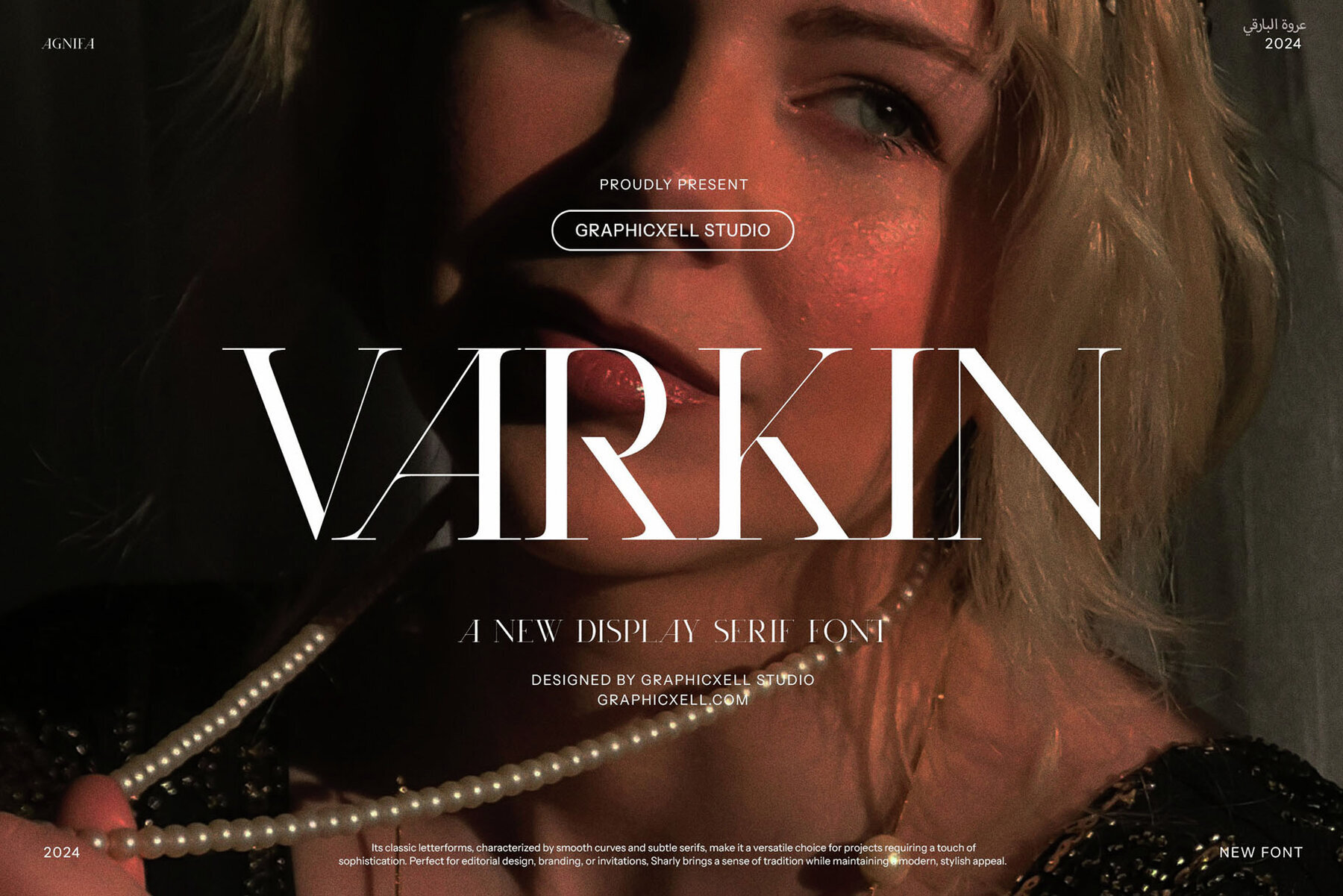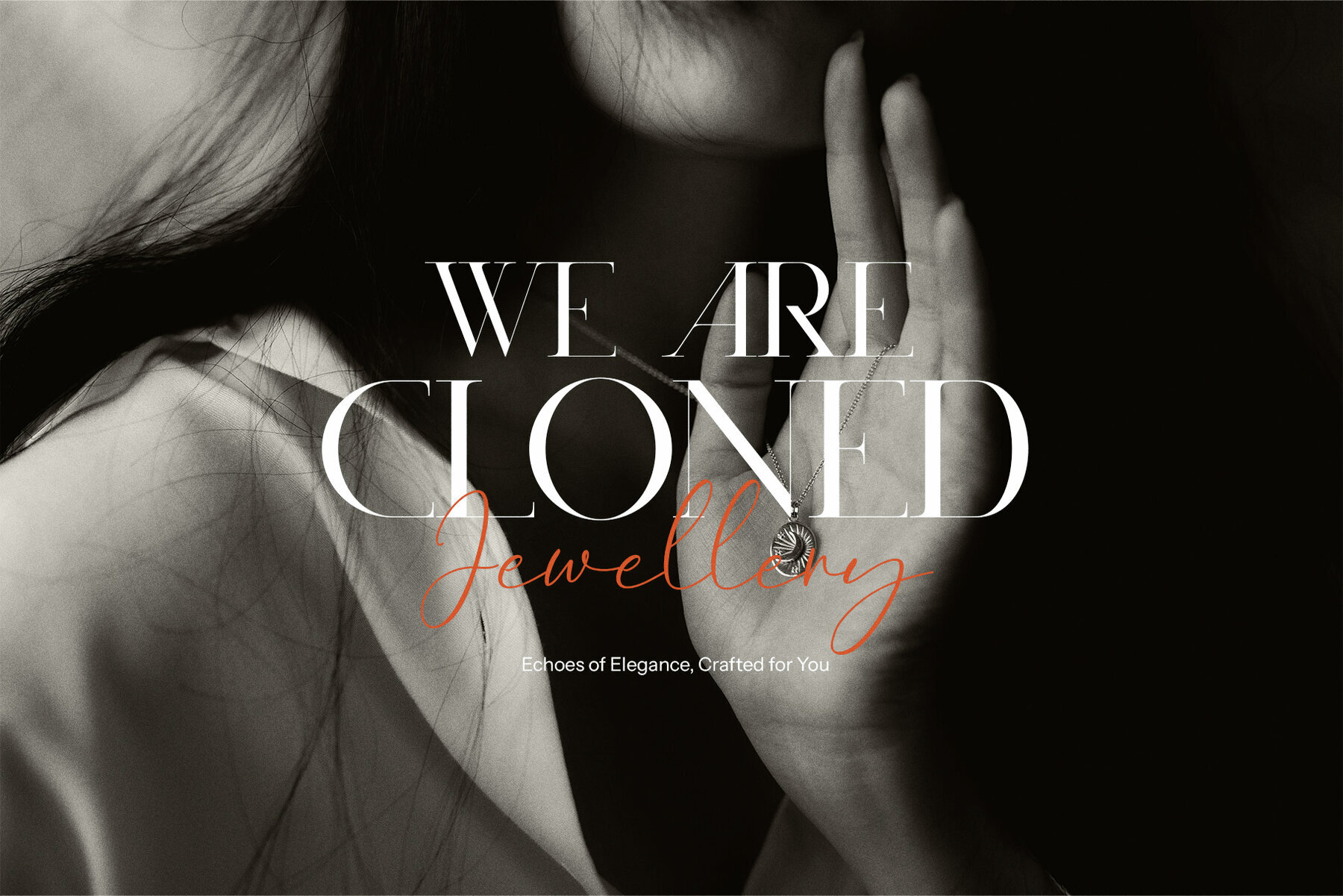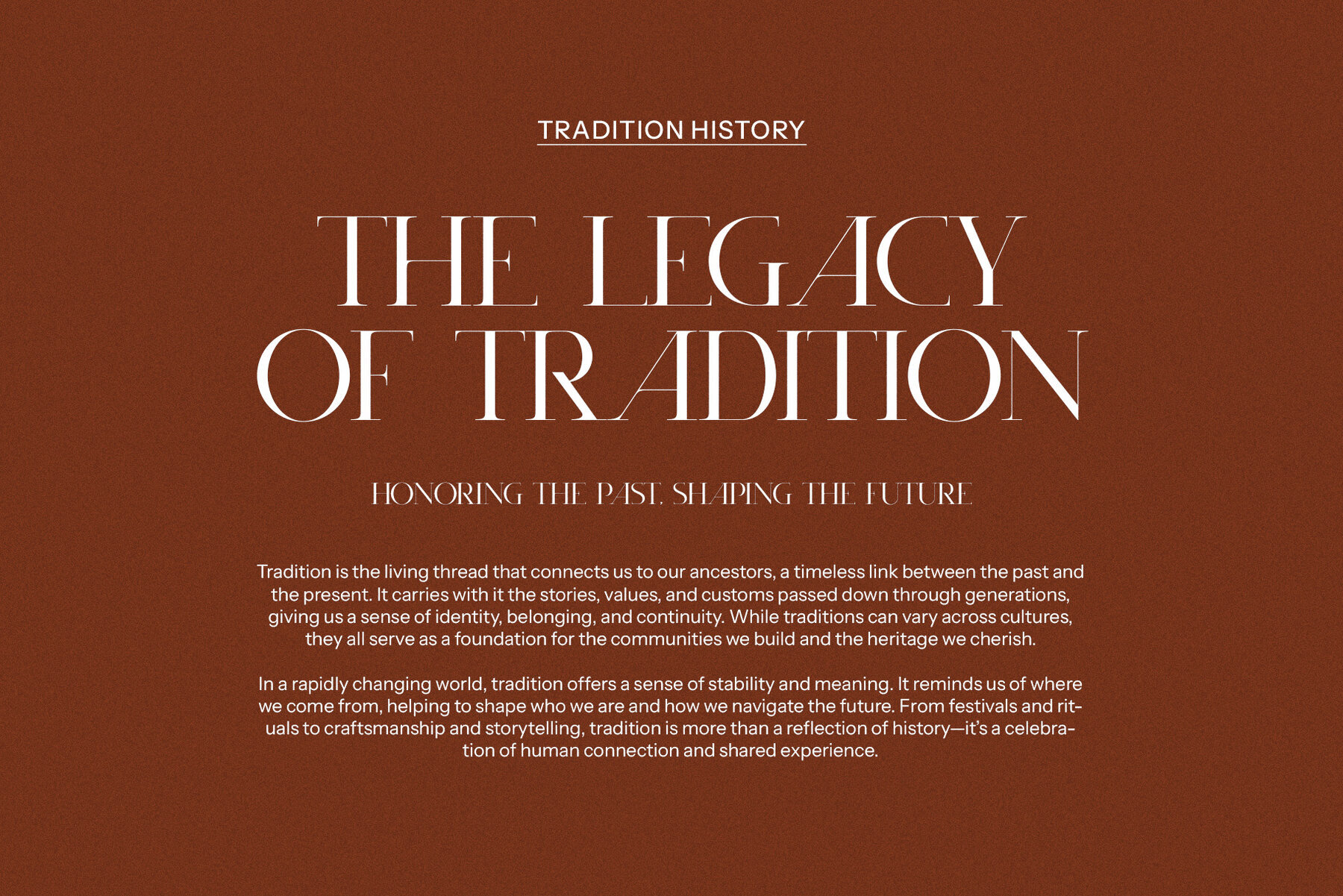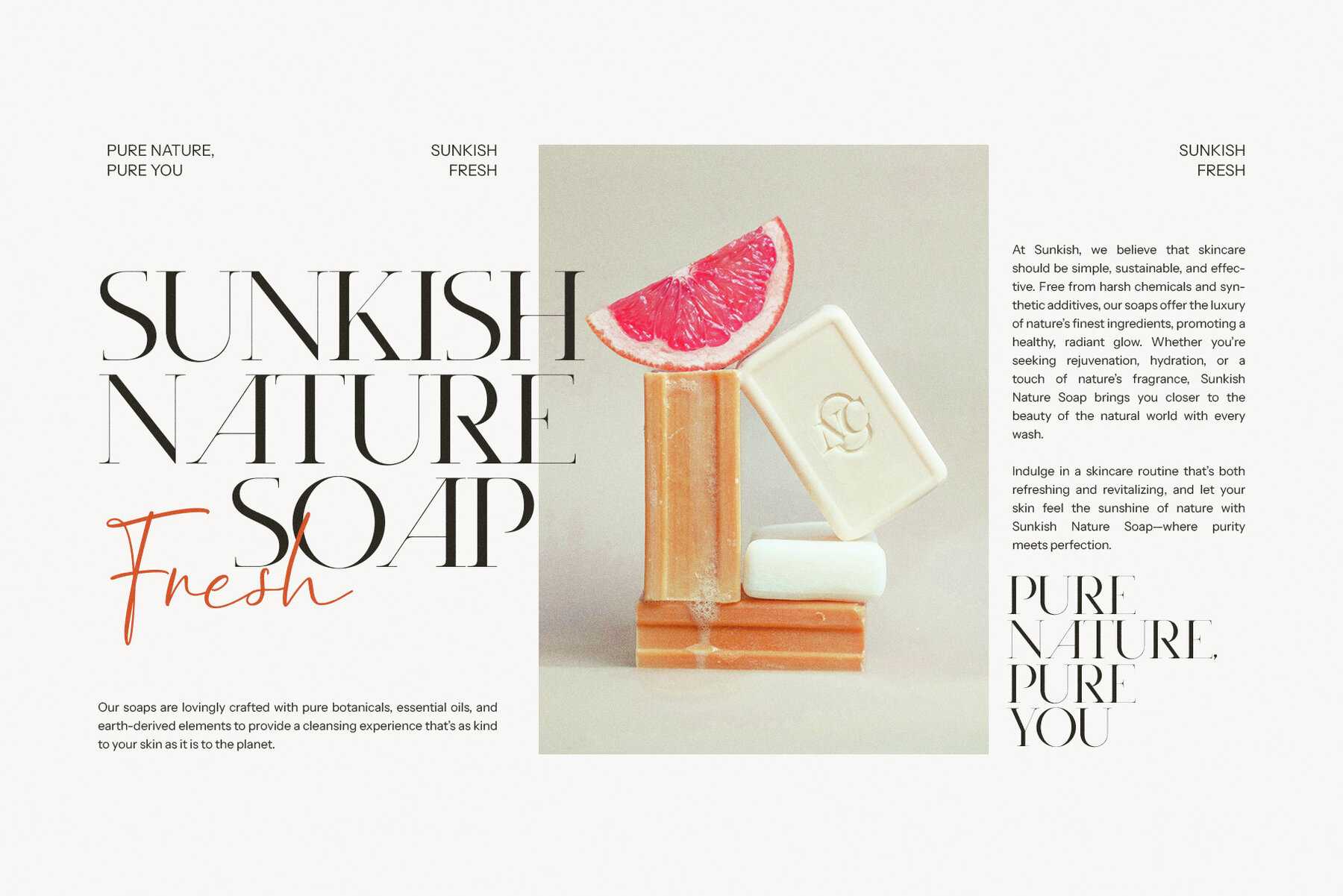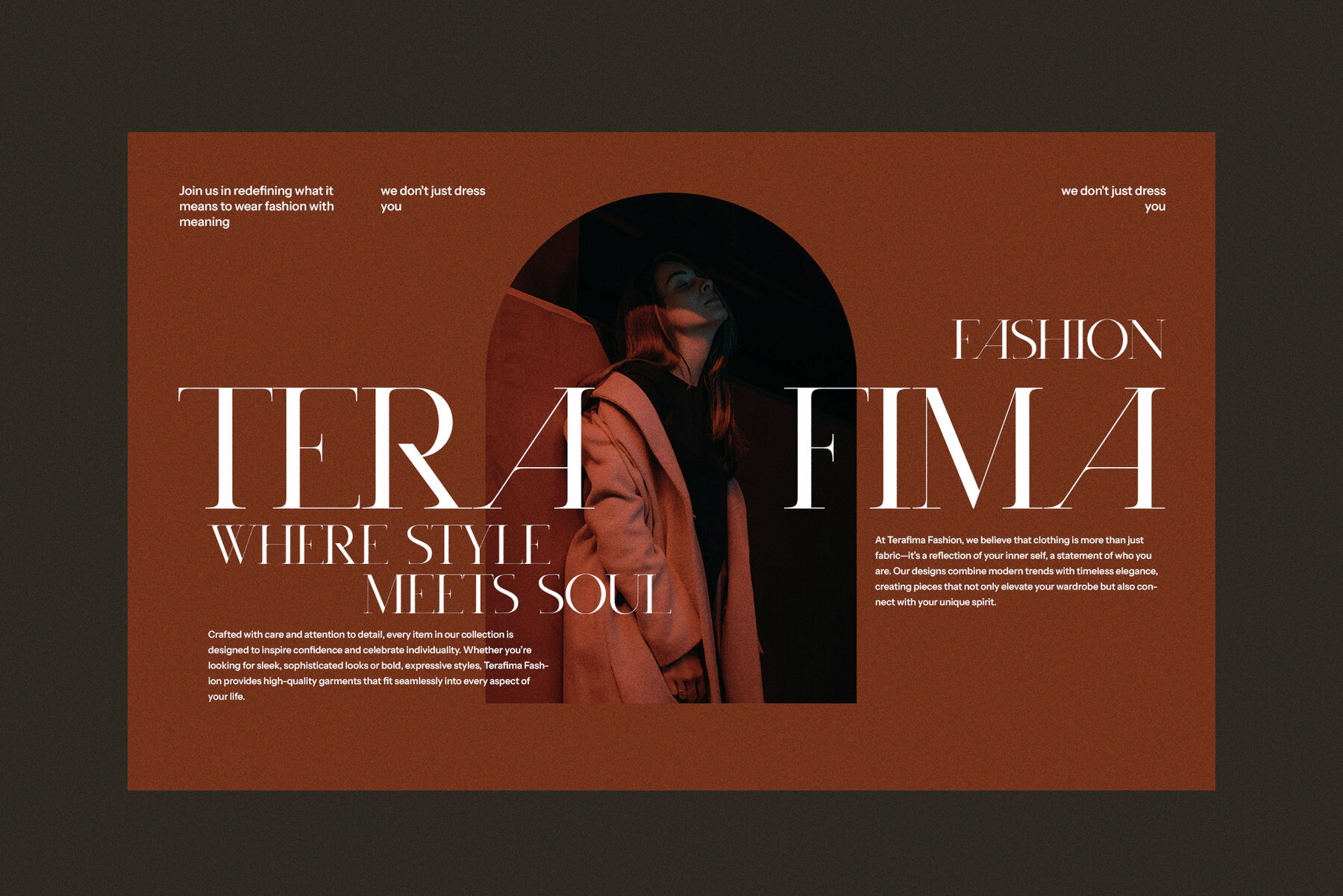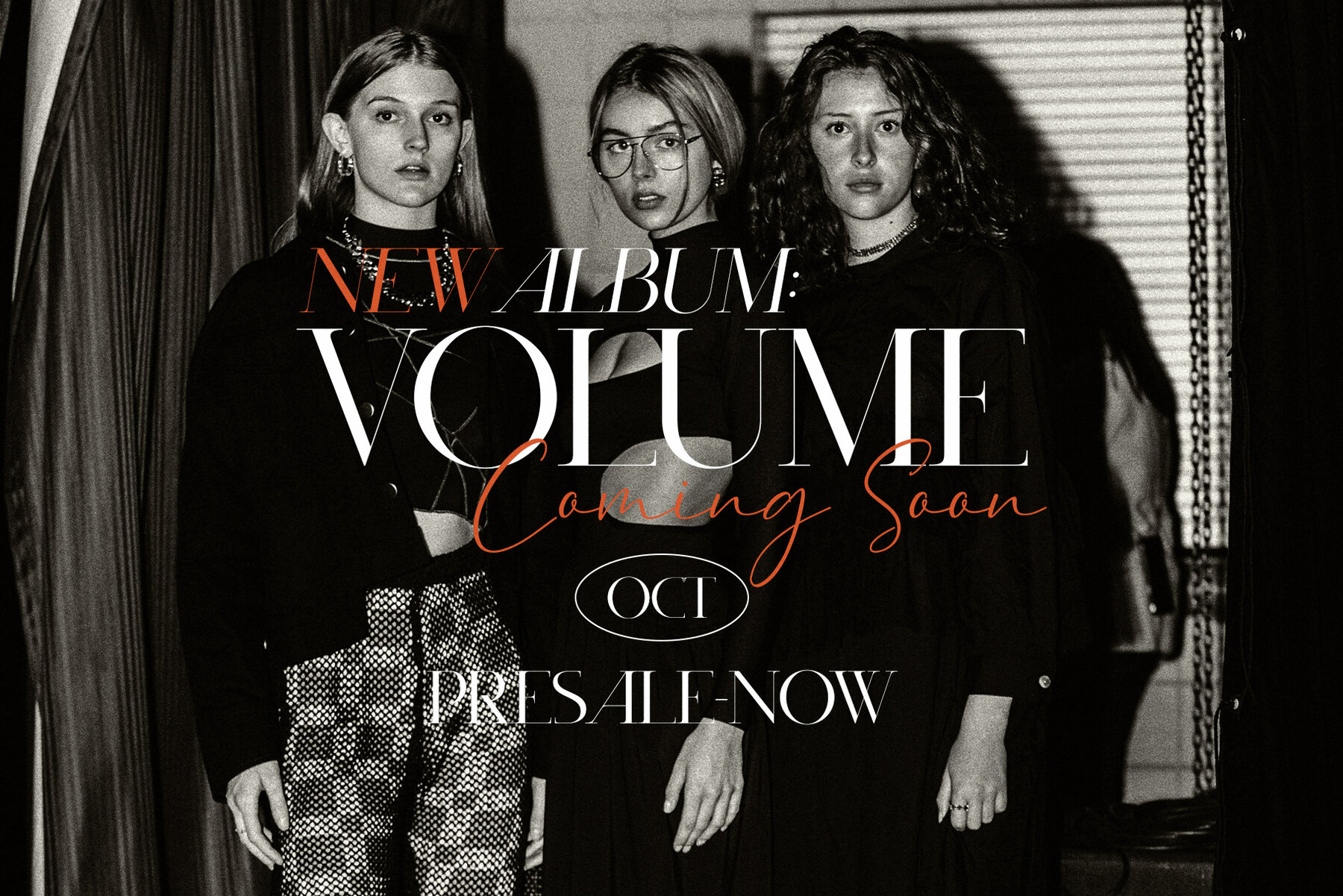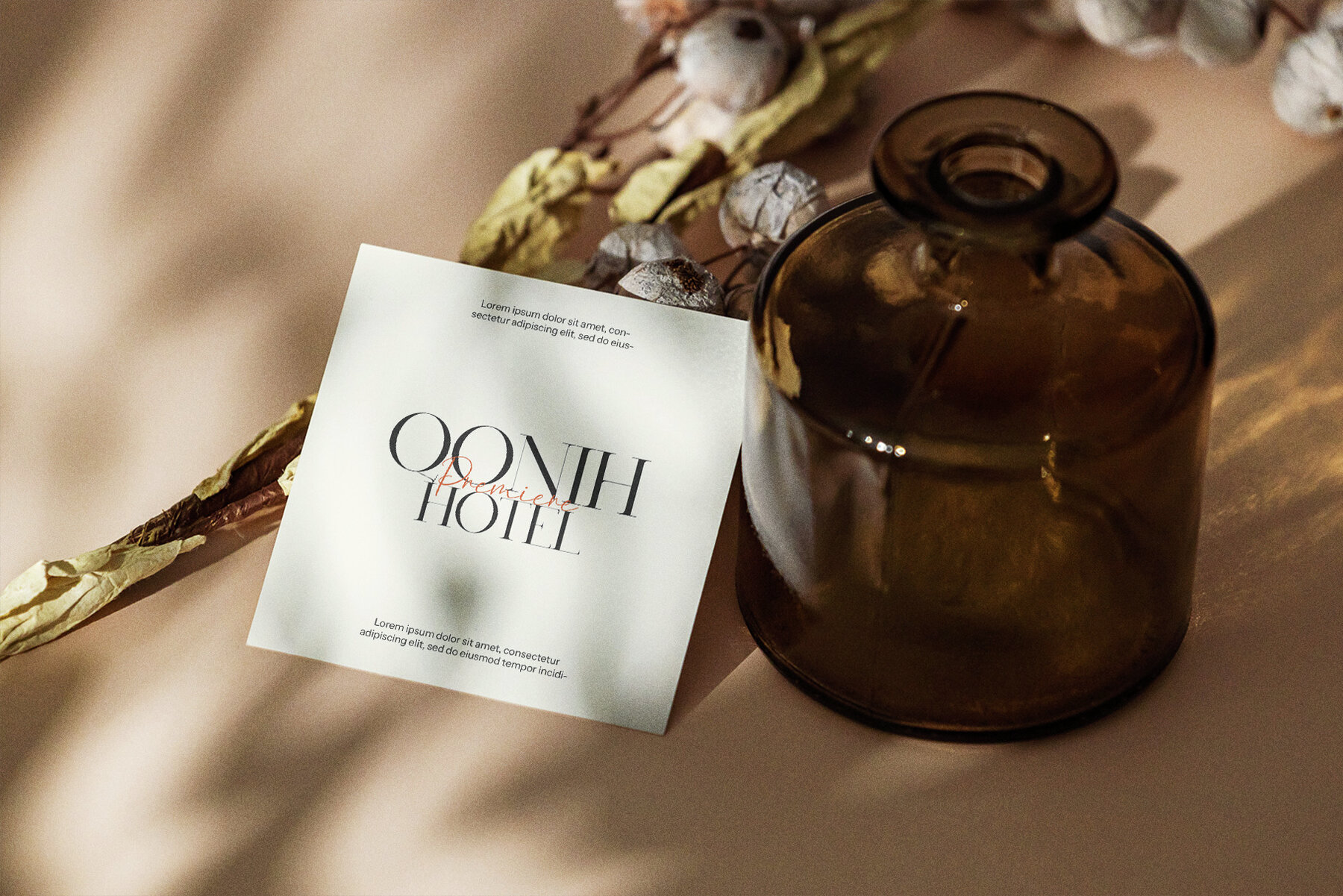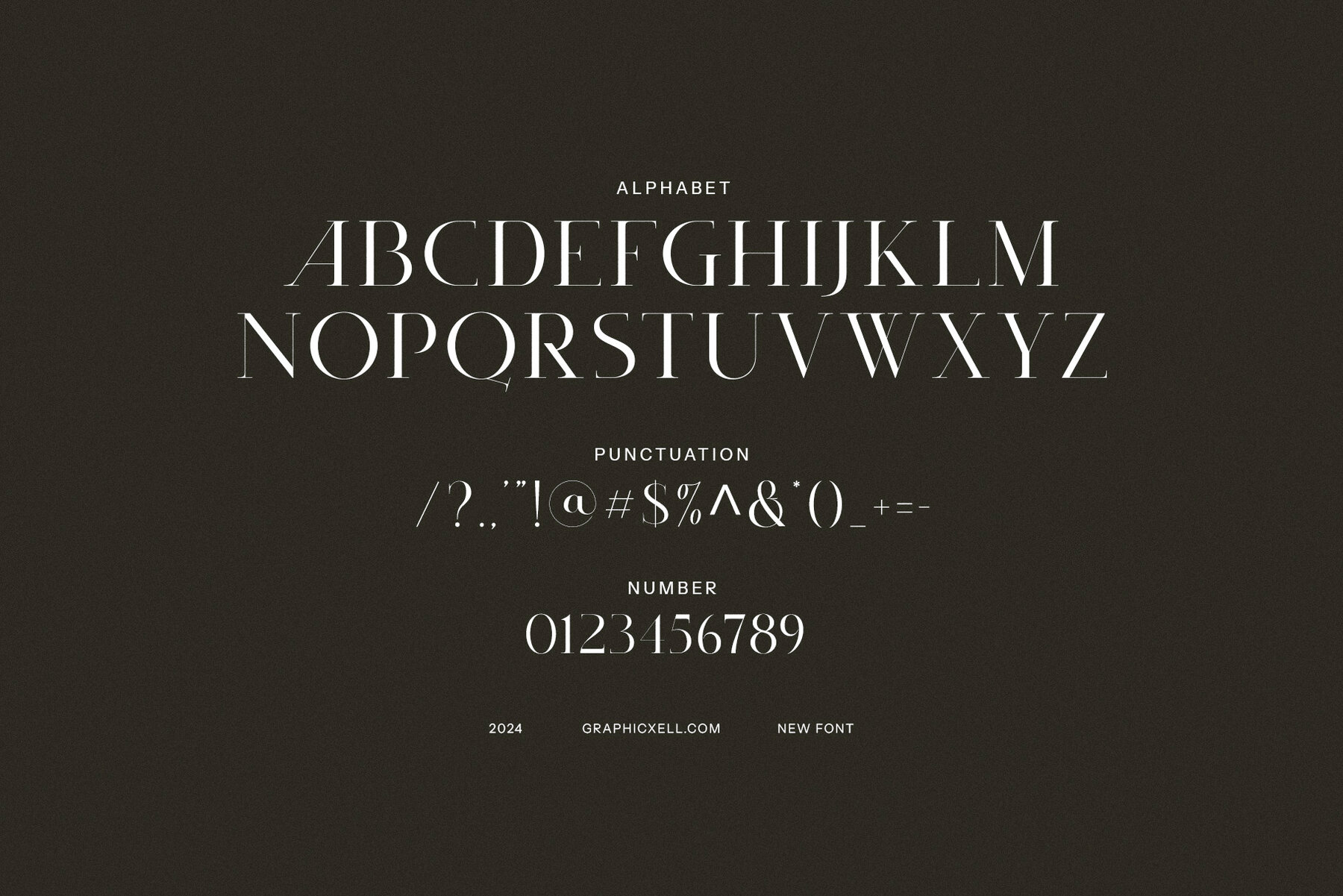
Varkin Font
Varkin
Varkin Elegant Serif Font is a timeless typeface that effortlessly combines the classic beauty of vintage serifs with a contemporary, refined edge. Its elegant, sculpted letterforms are designed to convey a sense of sophistication and strength, while its unique shapes and proportions make it stand out as a bold yet graceful choice for any design project. Varkin is more than just a font—it’s a typographic statement that exudes both heritage and modern flair. The defining feature of Varkin lies in its distinctive serifs. Crafted with an intricate balance of sharp angles and subtle curves, the serifs provide a strong visual foundation while retaining a sense of fluidity. This unique combination allows the font to carry both boldness and delicacy, giving it the flexibility to shine in a variety of design contexts. Whether used for large display text or in finer details, Varkin always commands attention without overpowering the design. Varkin Elegant Serif Font is an ideal choice for projects that require a touch of luxury and timeless appeal. Perfect for logos, branding, invitations, and magazine layouts, it adds a layer of sophistication to any design. Its versatile charm makes it equally suitable for high-end product packaging, advertisements, and promotional materials, ensuring your designs stand out with an air of class and refinement. With its bold, elegant lines and unmistakable character, Varkin brings both distinction and style to every project it touches.